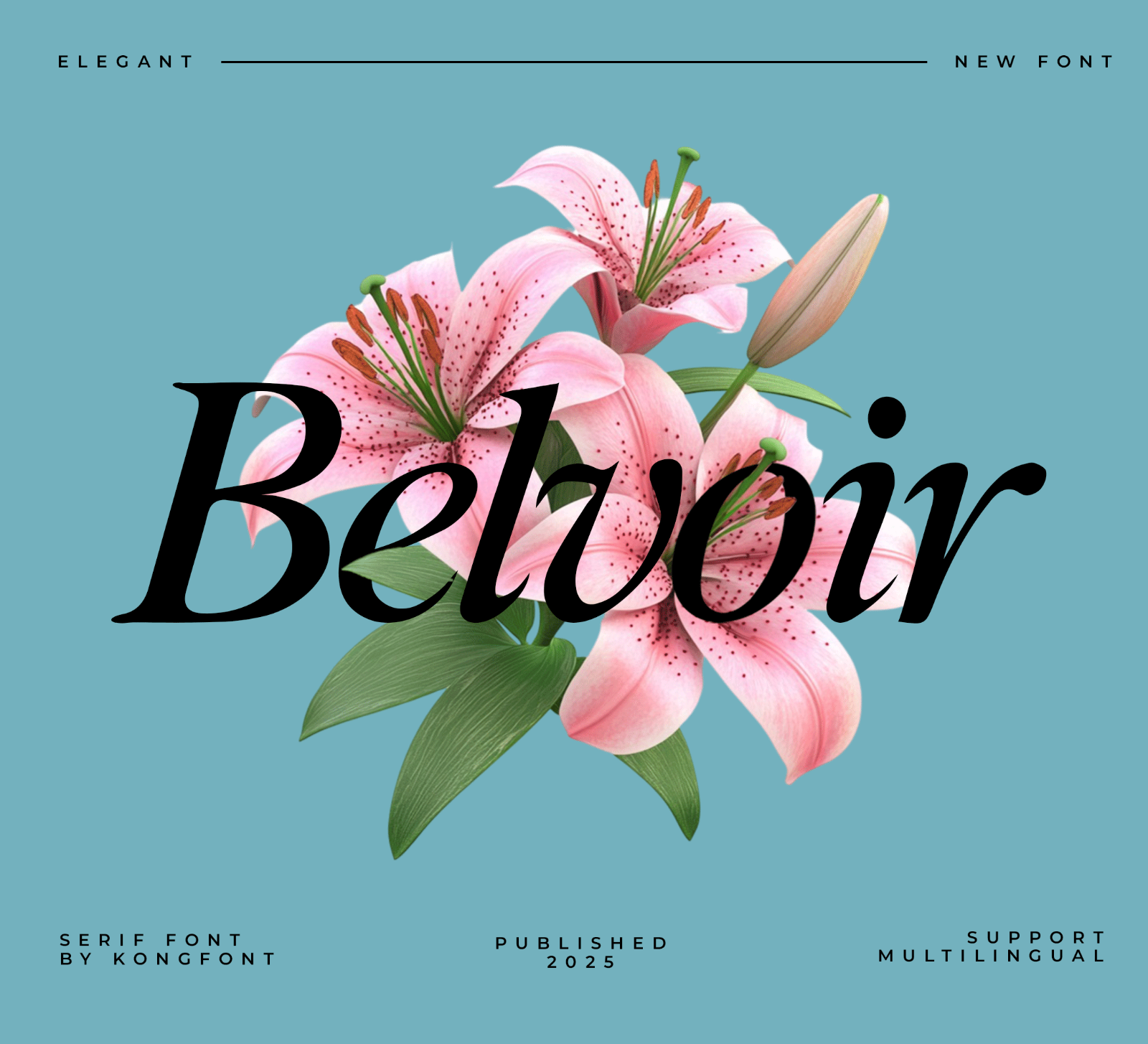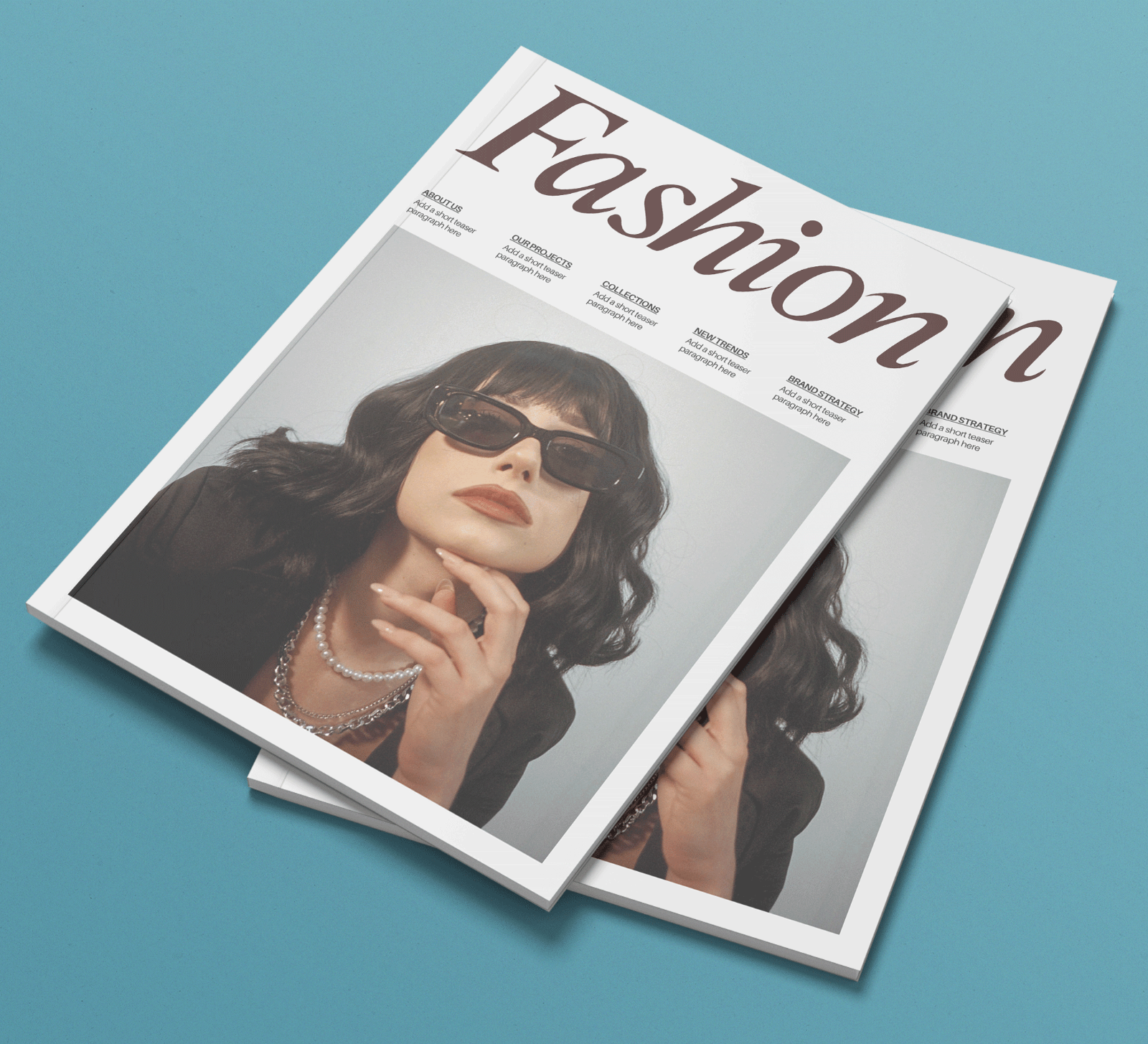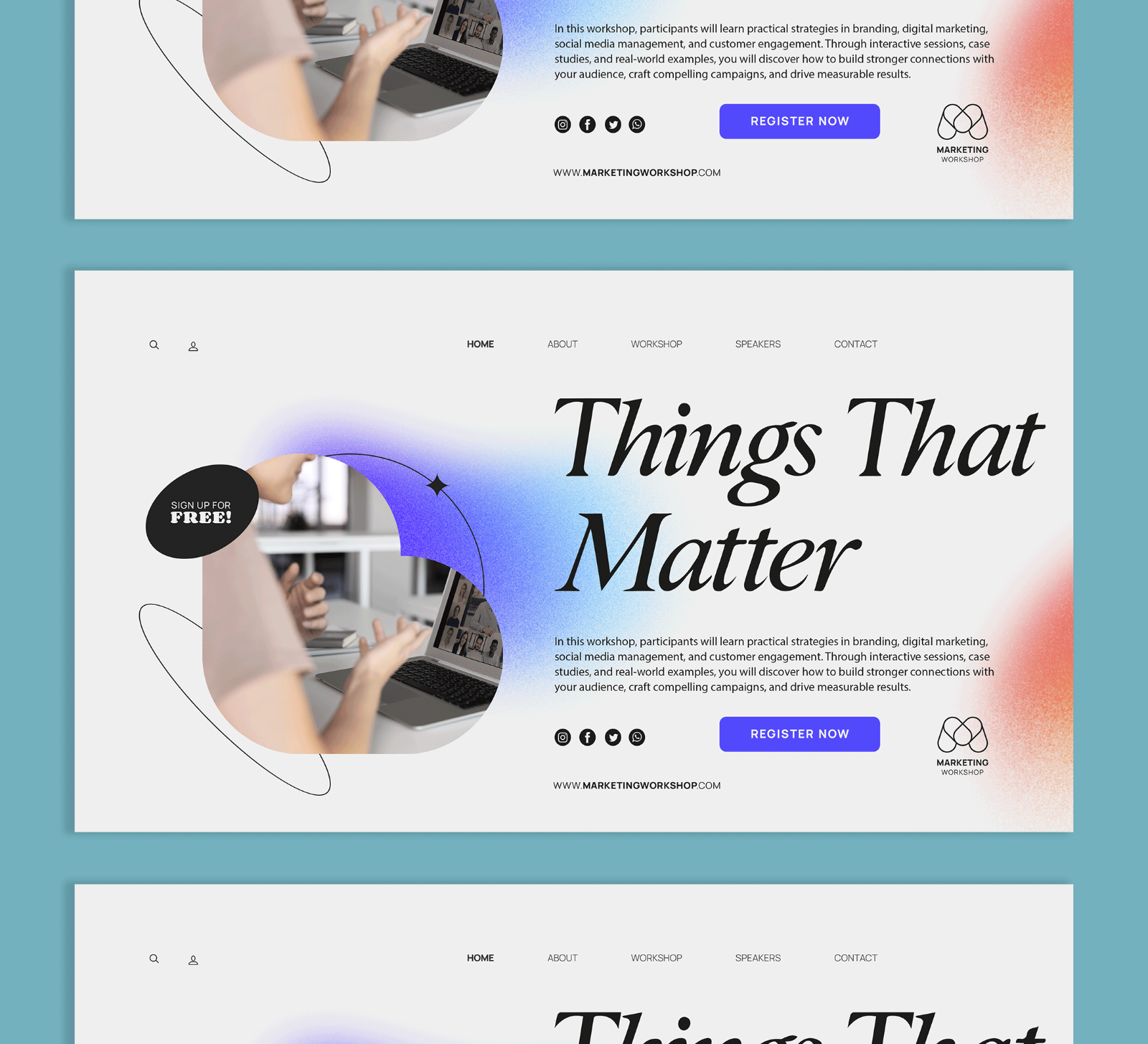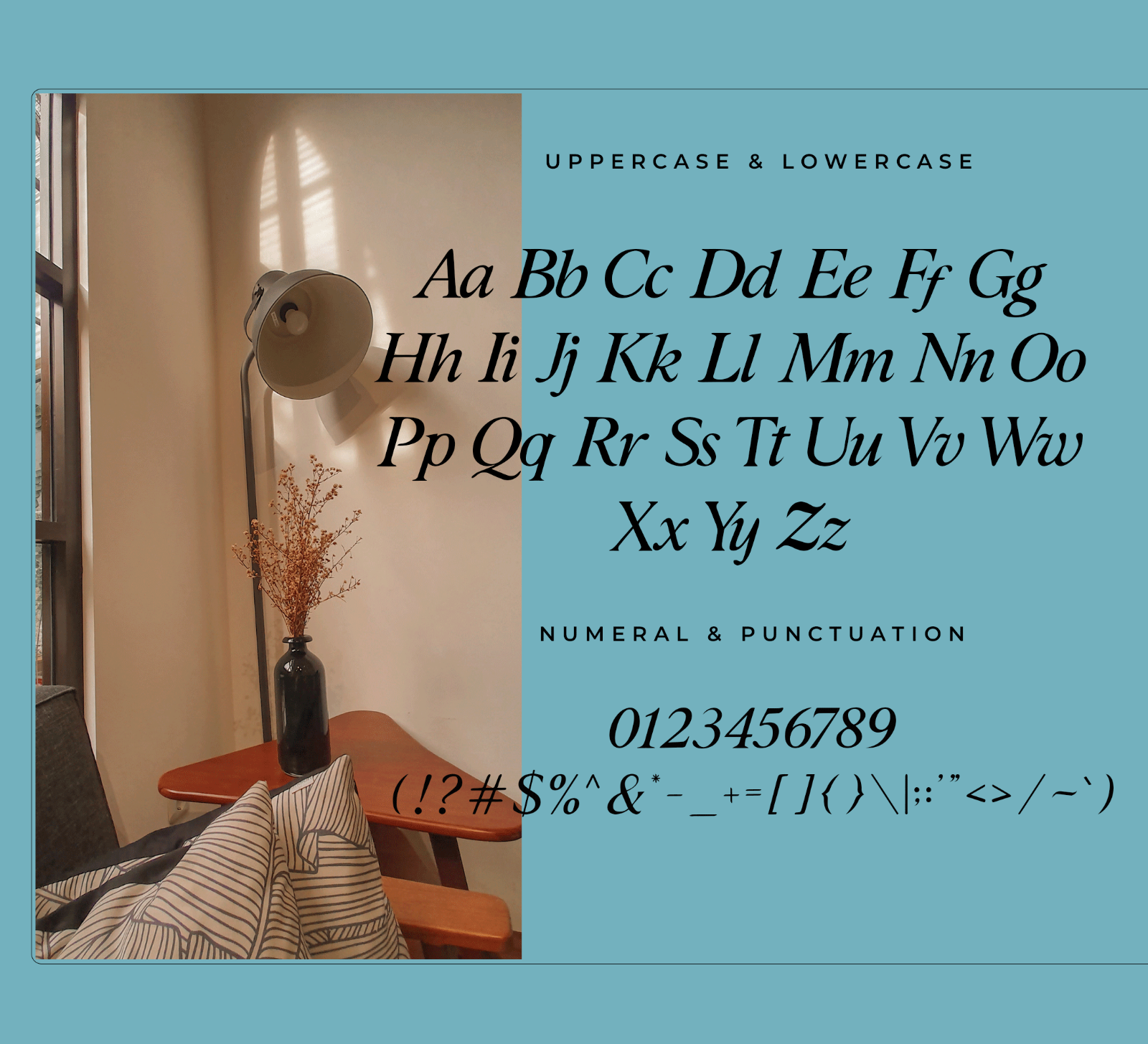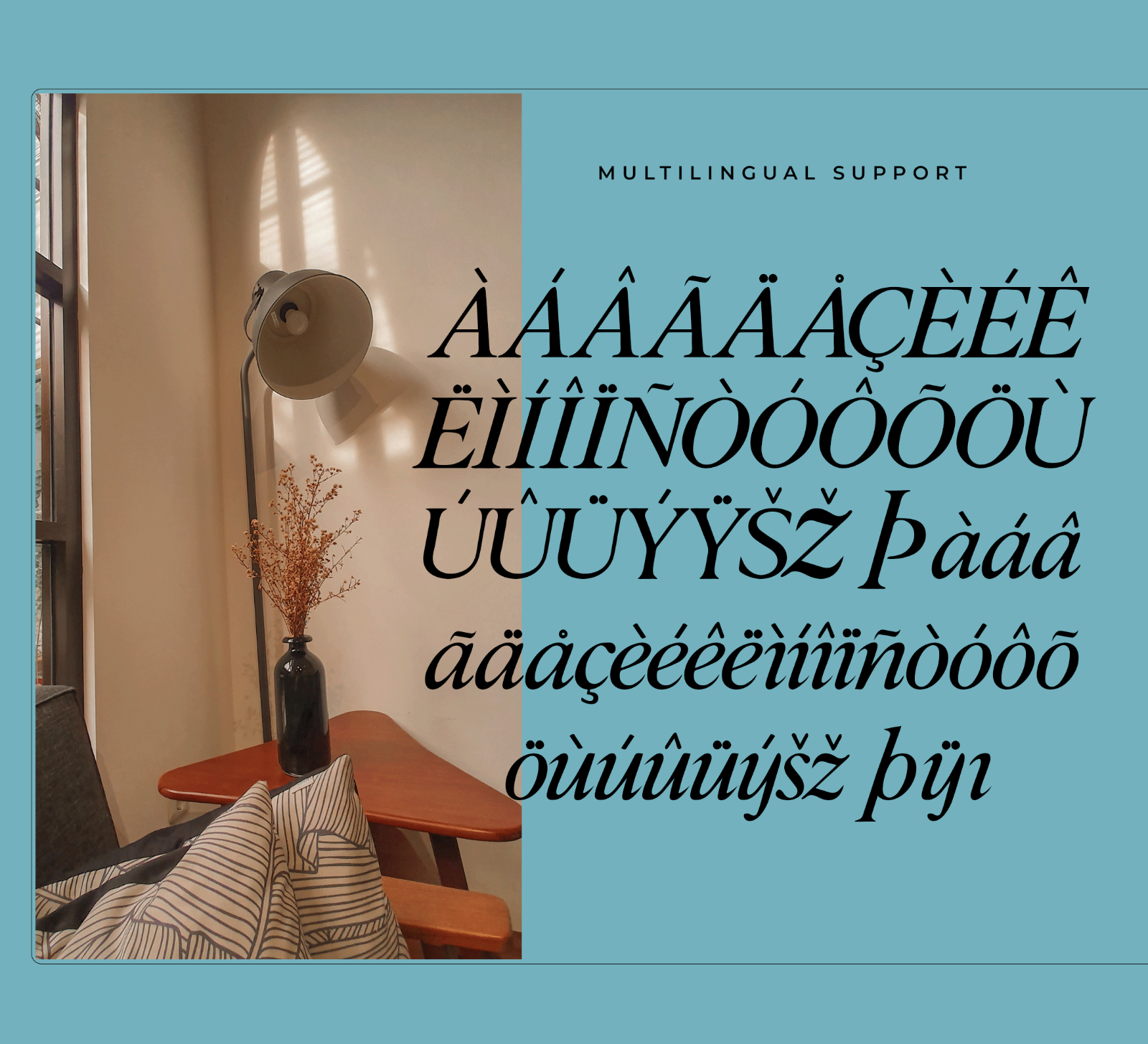
Belvoir is a modern classy serif font with bold letterforms, elegant curves, and a refined contemporary style. Its stylish and sophisticated appearance makes it perfect for branding, headlines, and creative display designs.
• Branding
• Logos
• Business cards
• Blog headers
• Quotes
• Editorial titles
• Packaging
• Creative typography